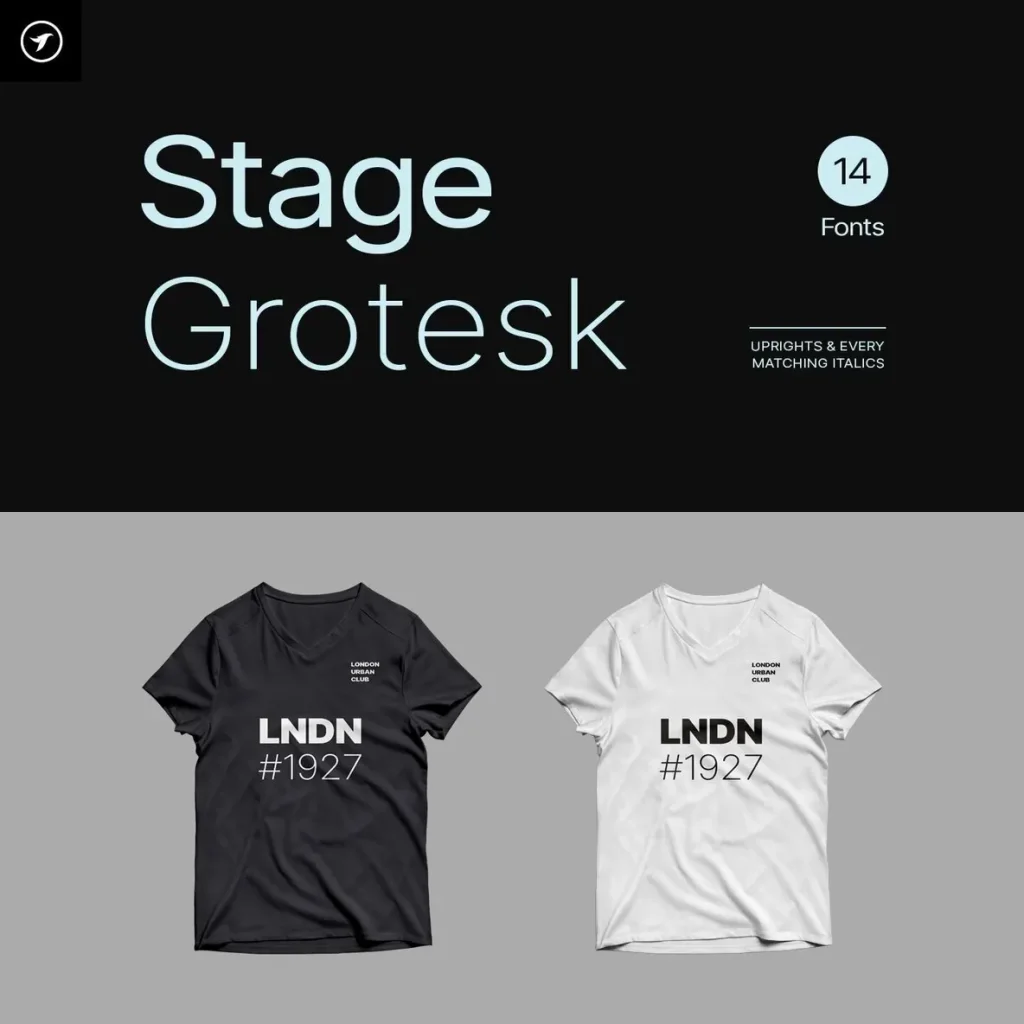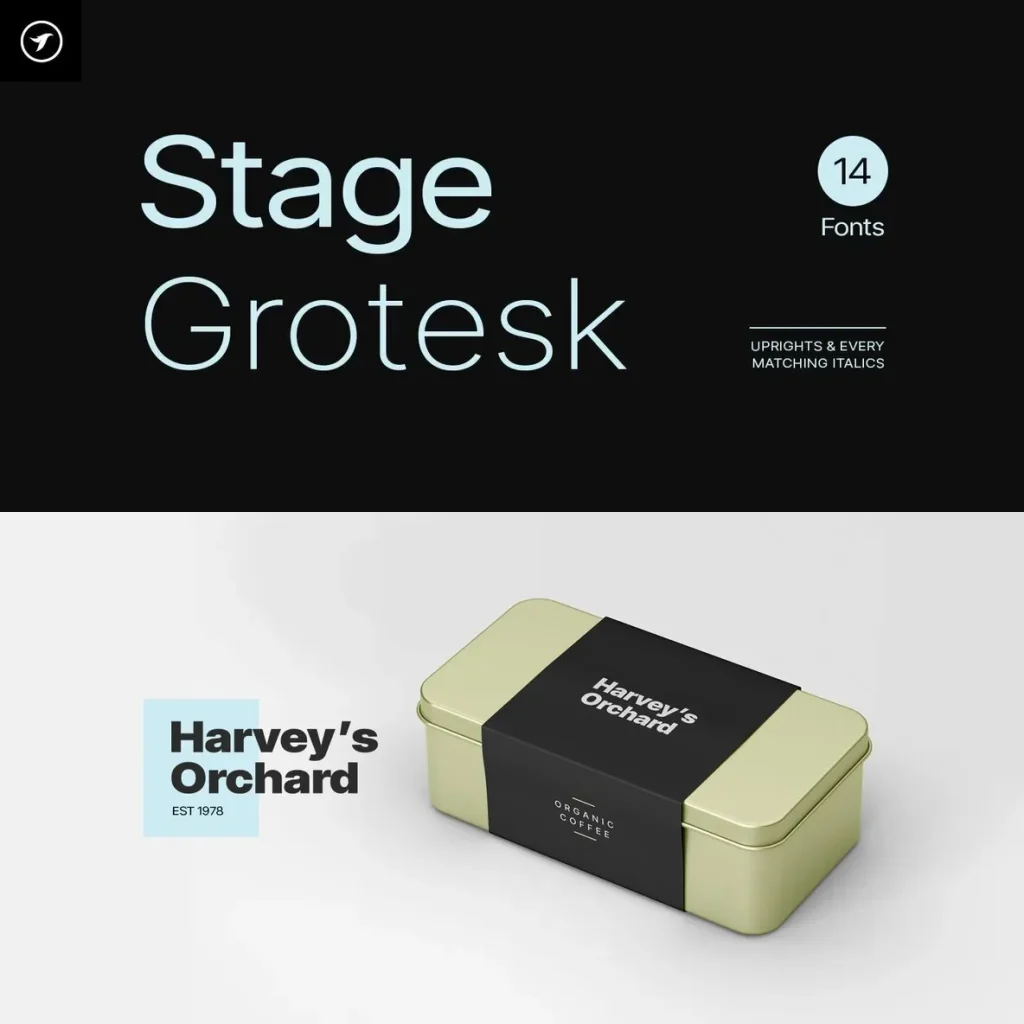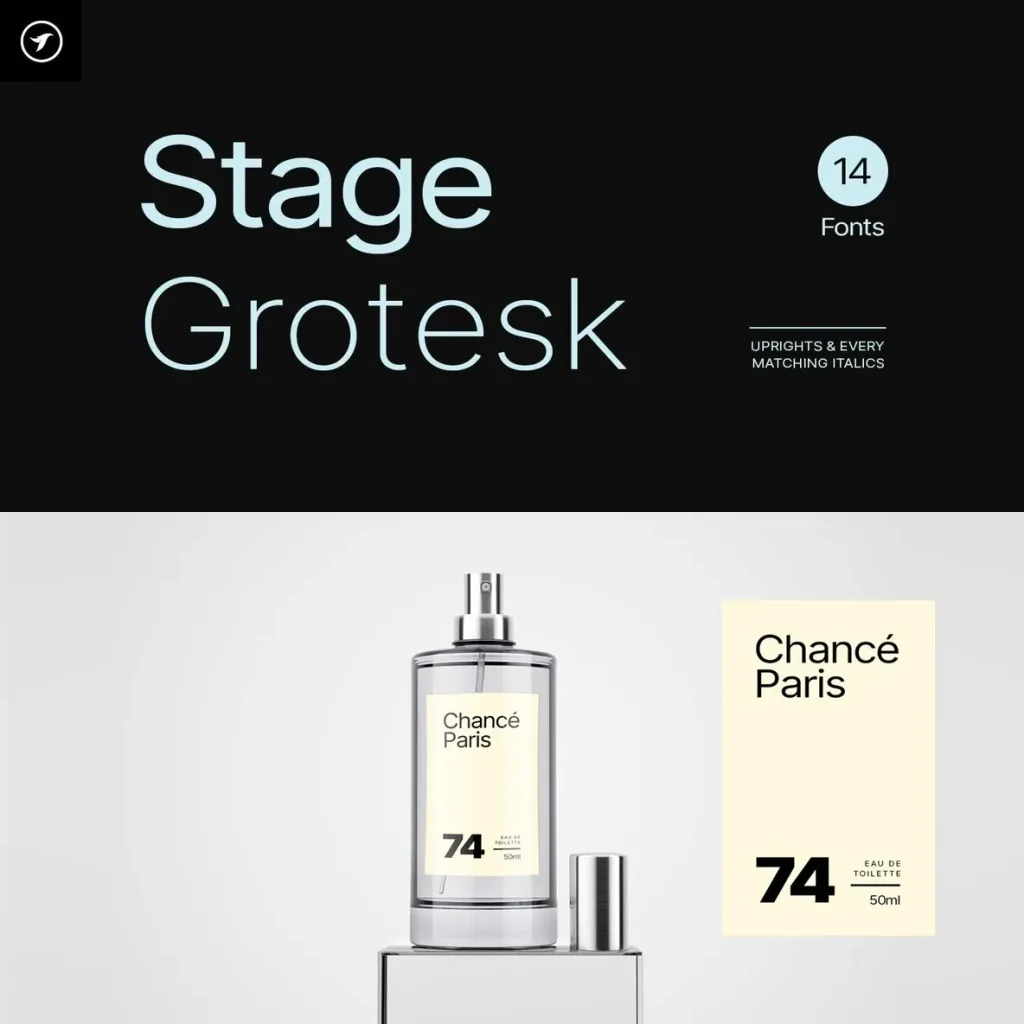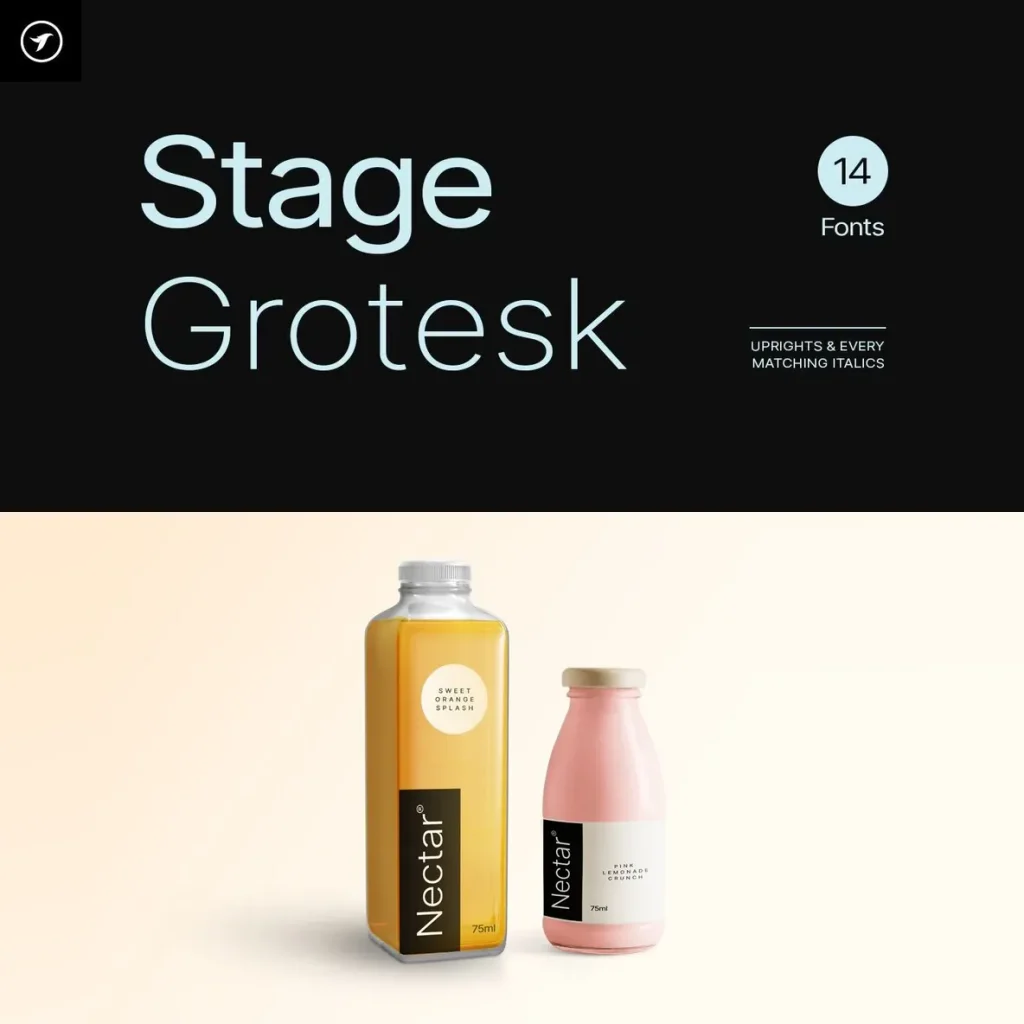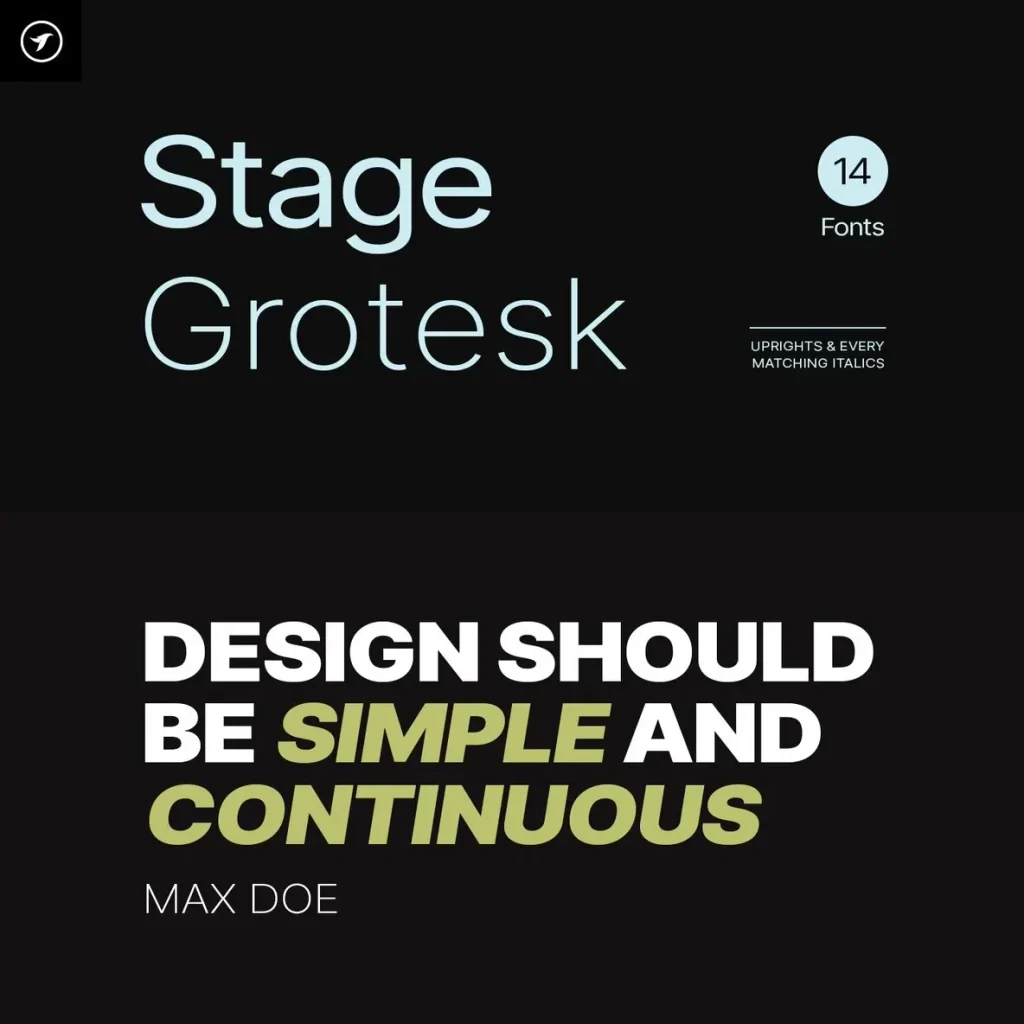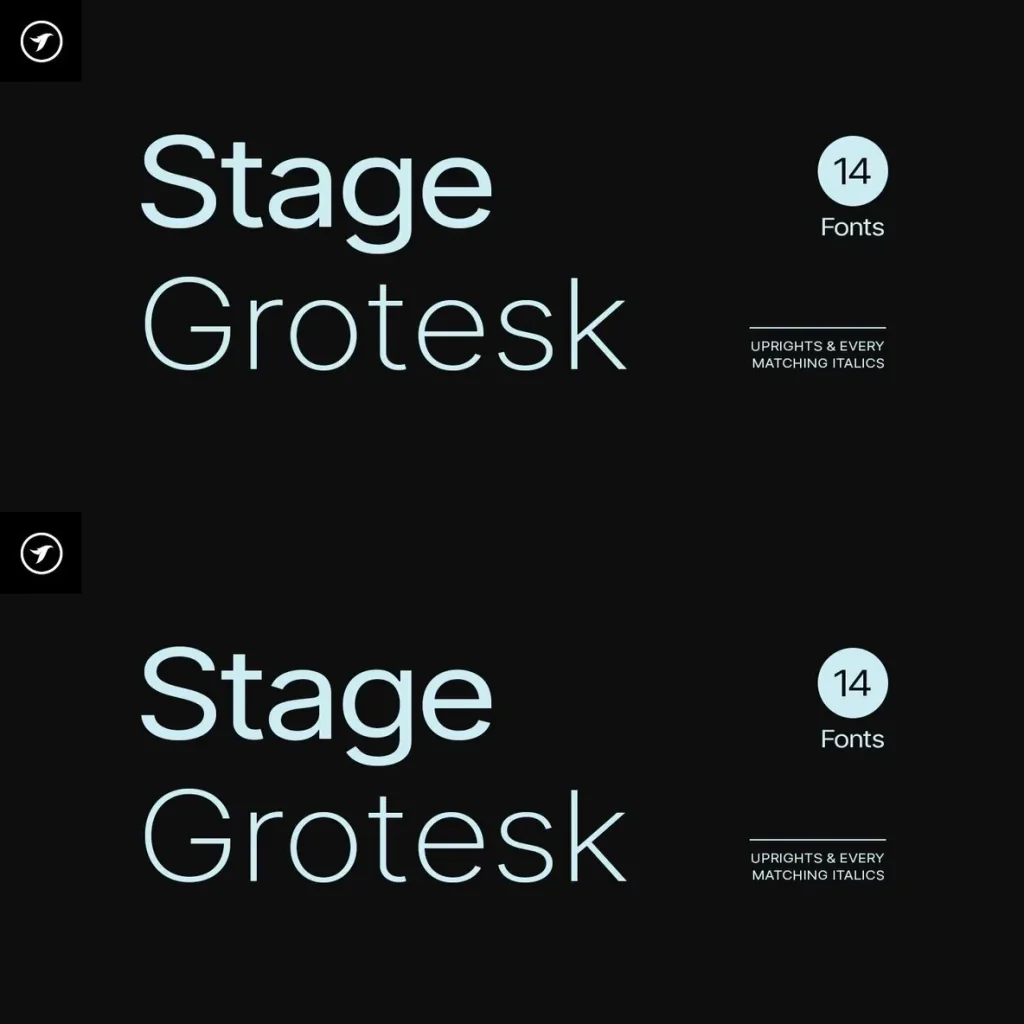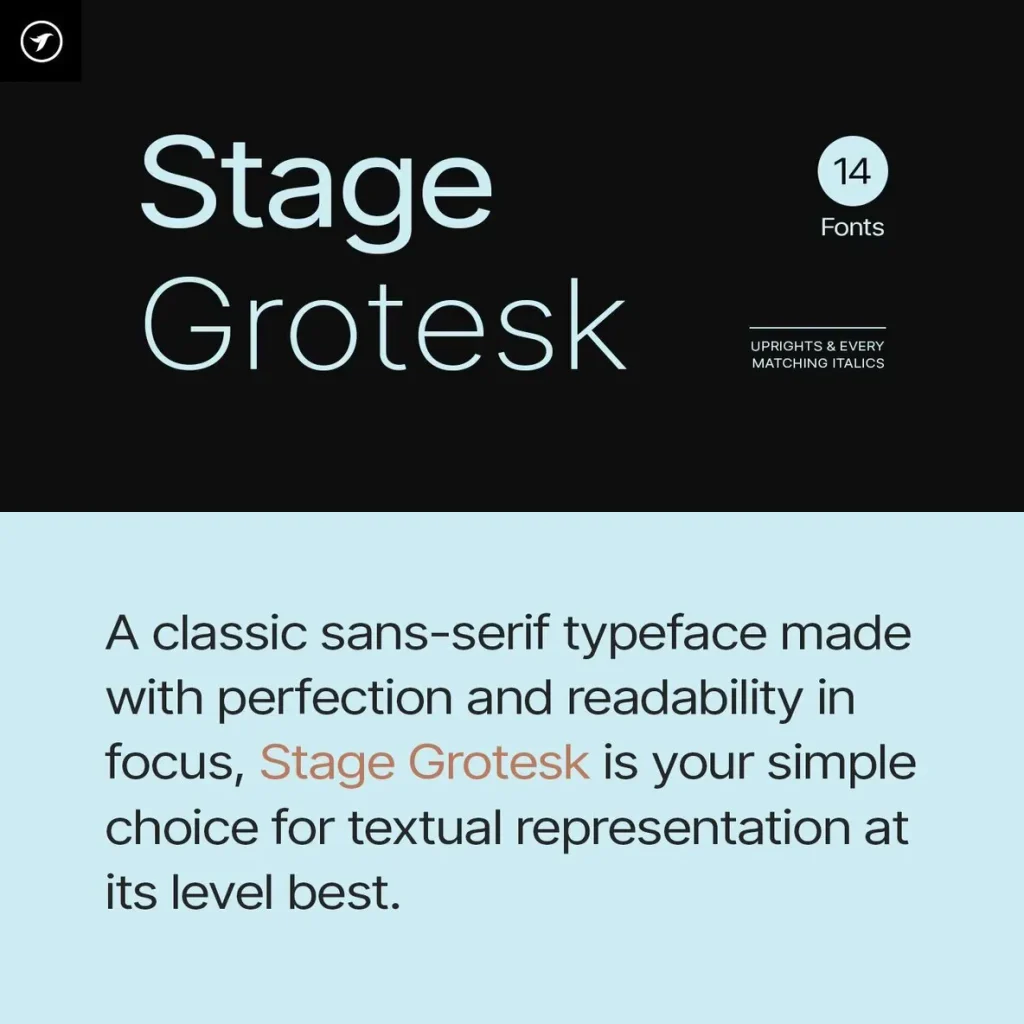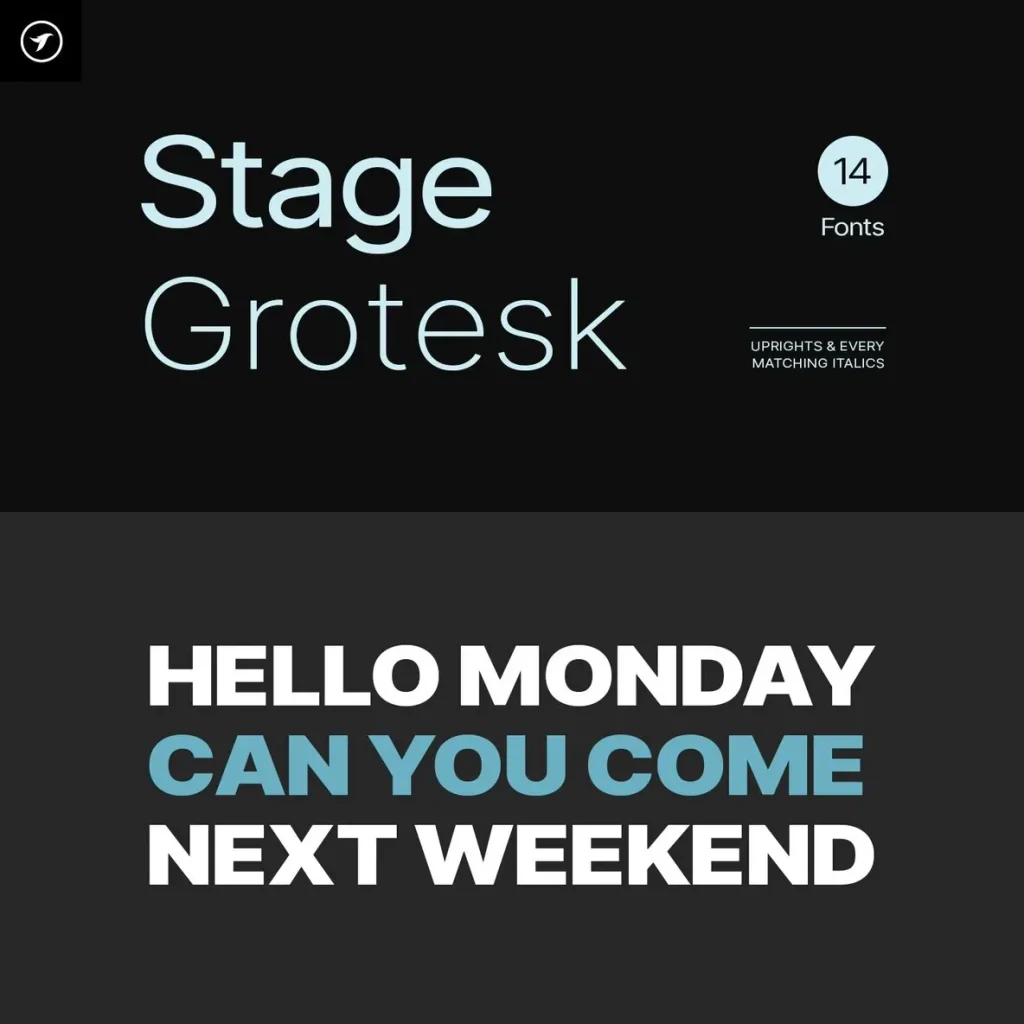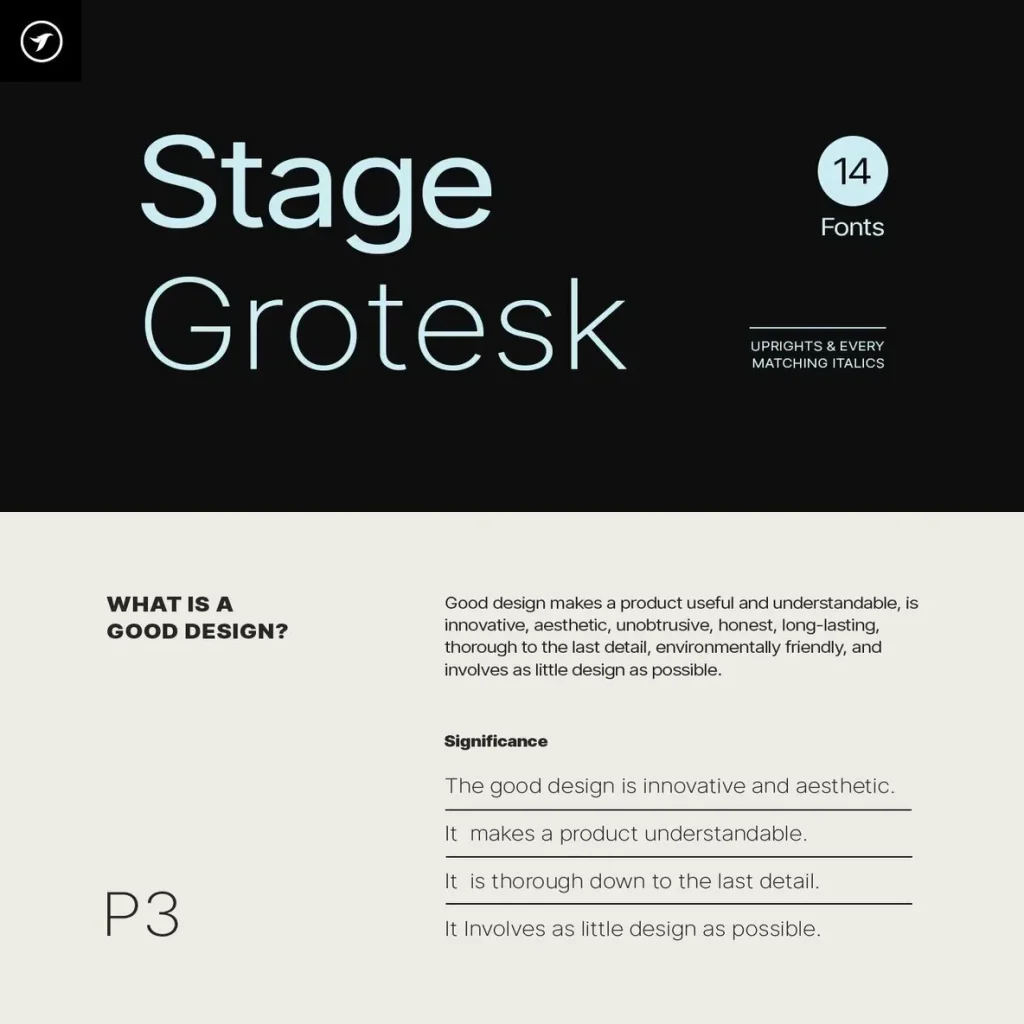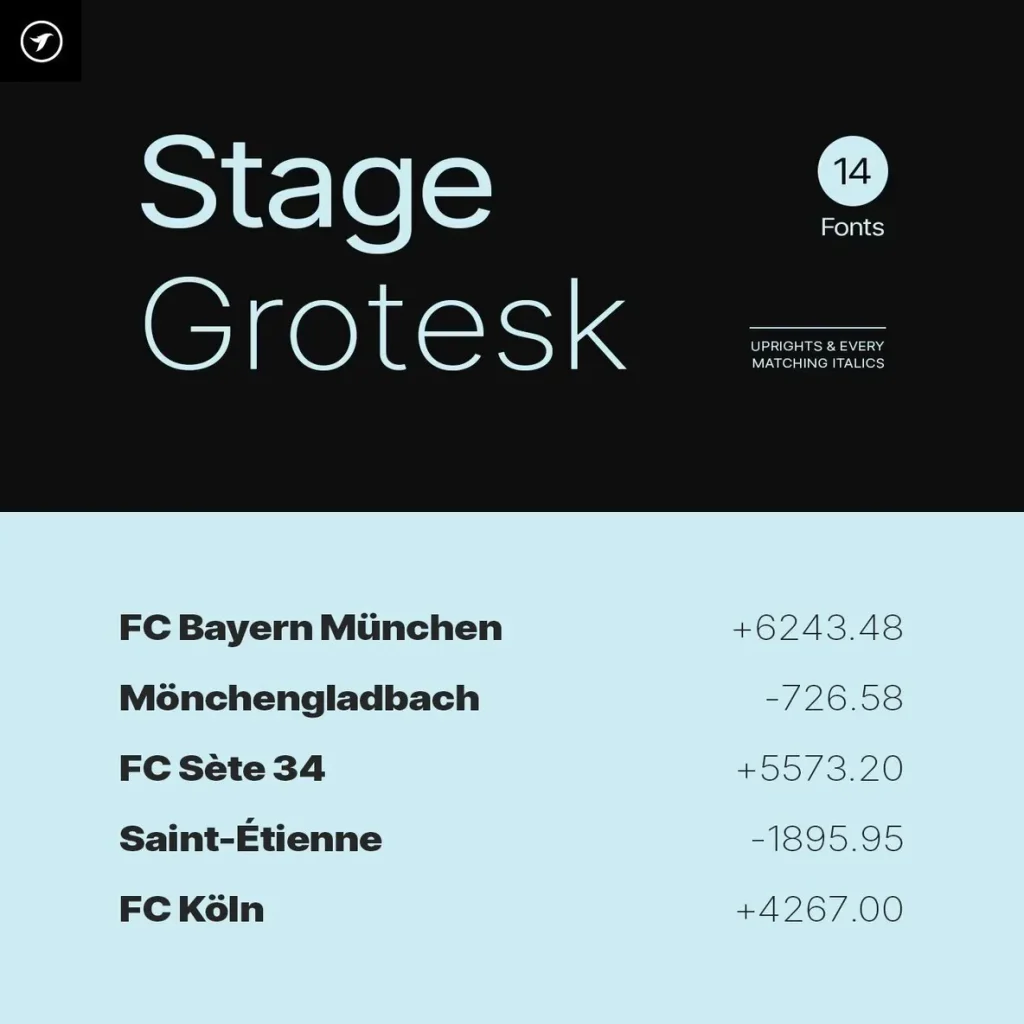
STAGE GROTESK — Structure for Serious Systems
STAGE GROTESK is a modern sans-serif typeface family designed with clean structure, balanced proportions, and professional versatility. Its contemporary grotesque character gives designers a reliable typographic system for branding, editorial design, interfaces, and corporate communication.
Clear forms and measured spacing make STAGE GROTESK suited to work across identity systems and text-led layouts. It offers a confident, practical voice for projects that need a polished sans-serif typeface with contemporary presence and dependable readability.